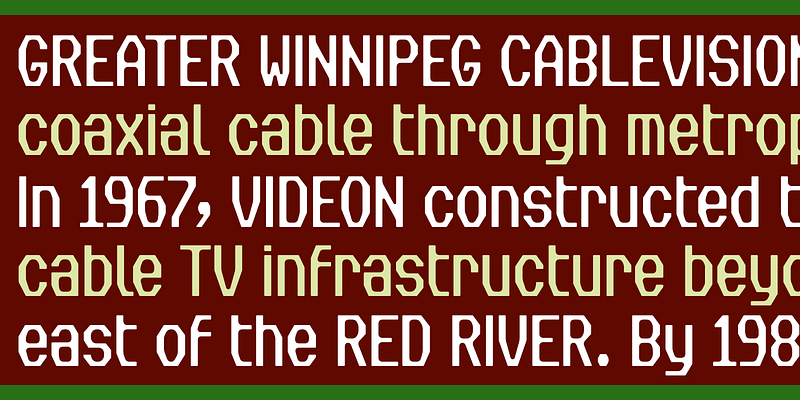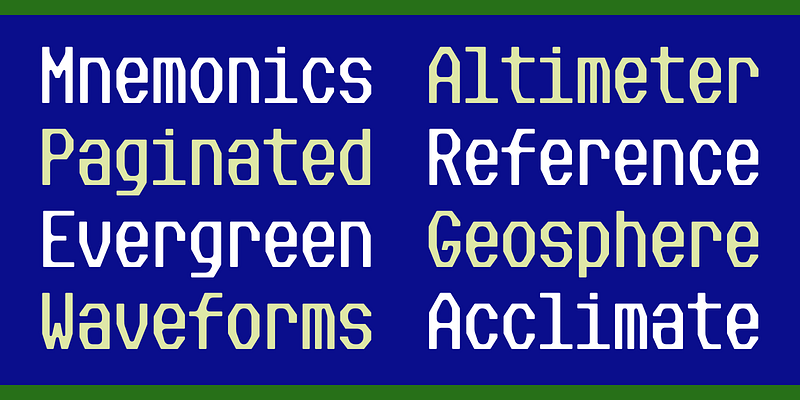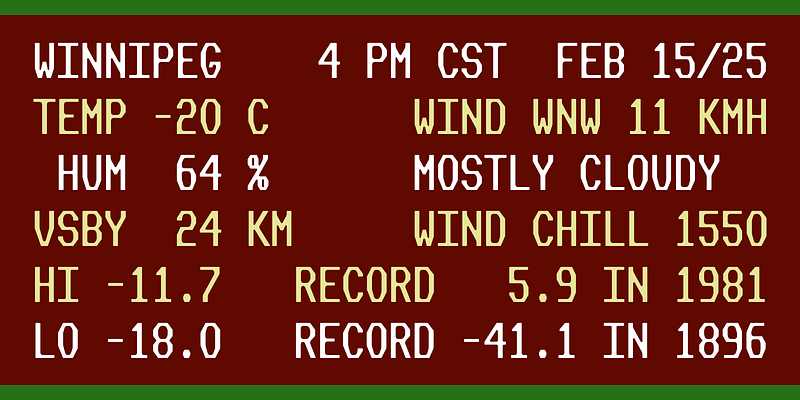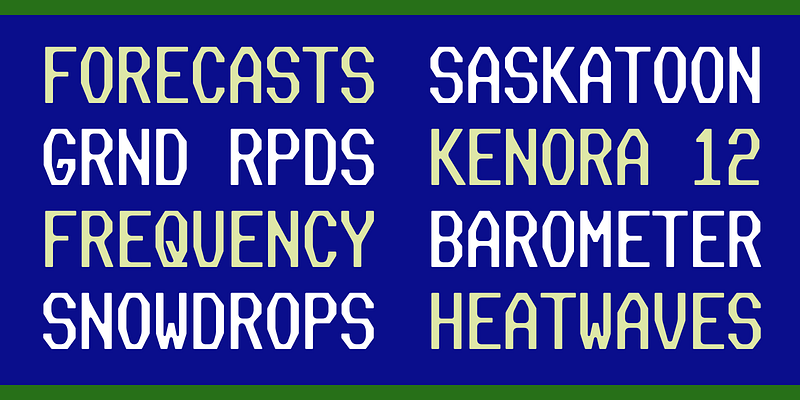
Matt Hadden and Mark J. Szymanski maintain a simulator of Environment Canada Weather Channel as it appeared on Greater Winnipeg Cablevision in the 1990s, livestreaming current weather. I worked with them to revive the angular bitmap font in use at the time, and then undertook this freer interpretation with both proportional and monospaced versions and an accompanying lowercase. Slight Chance evokes the worn, slightly-degraded texture of letterforms that have endured cable transmissions and cathode ray tubes, contrasting gummy, amorphous interior shapes with a harder-edged, octagonal exterior.